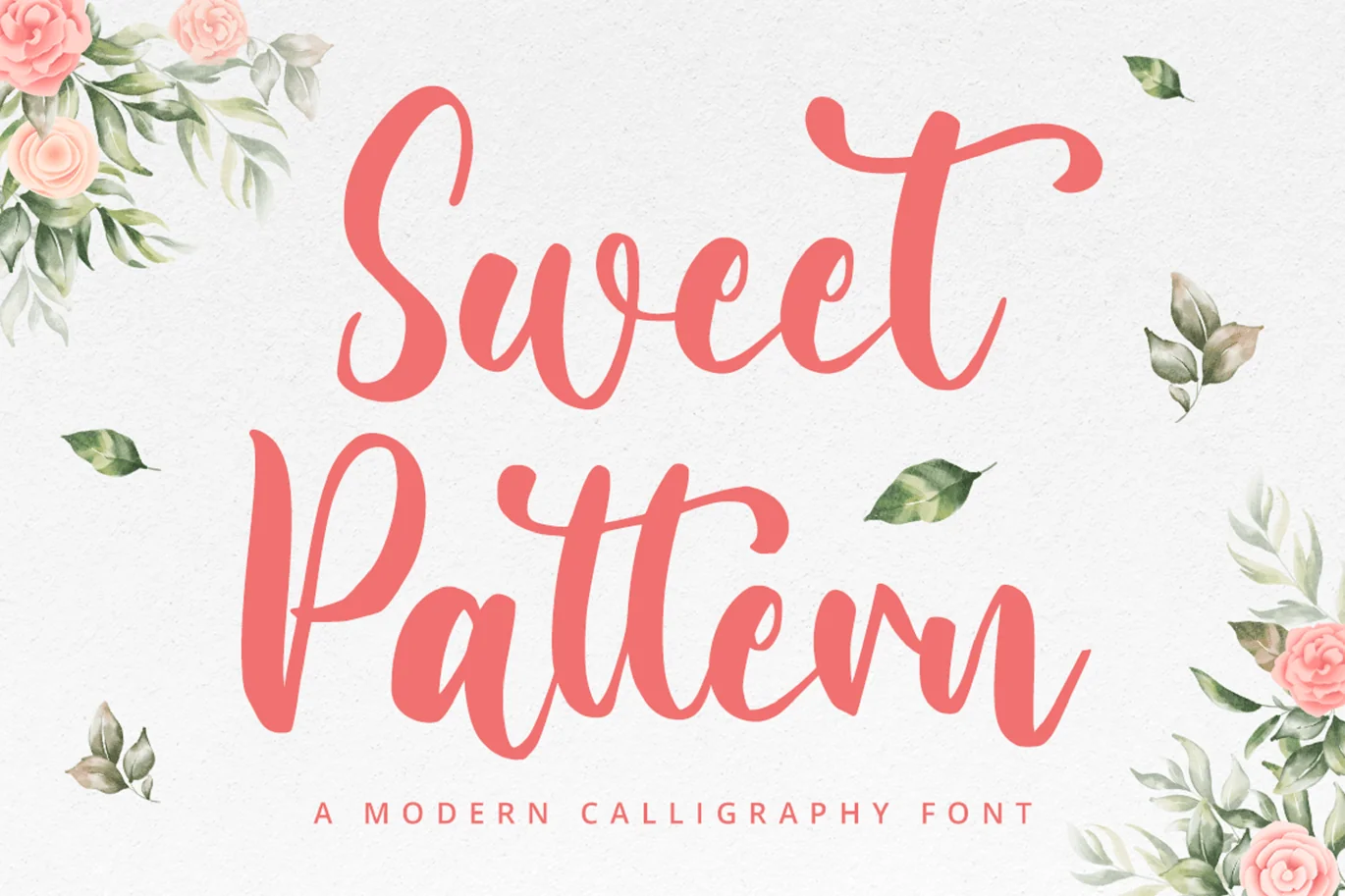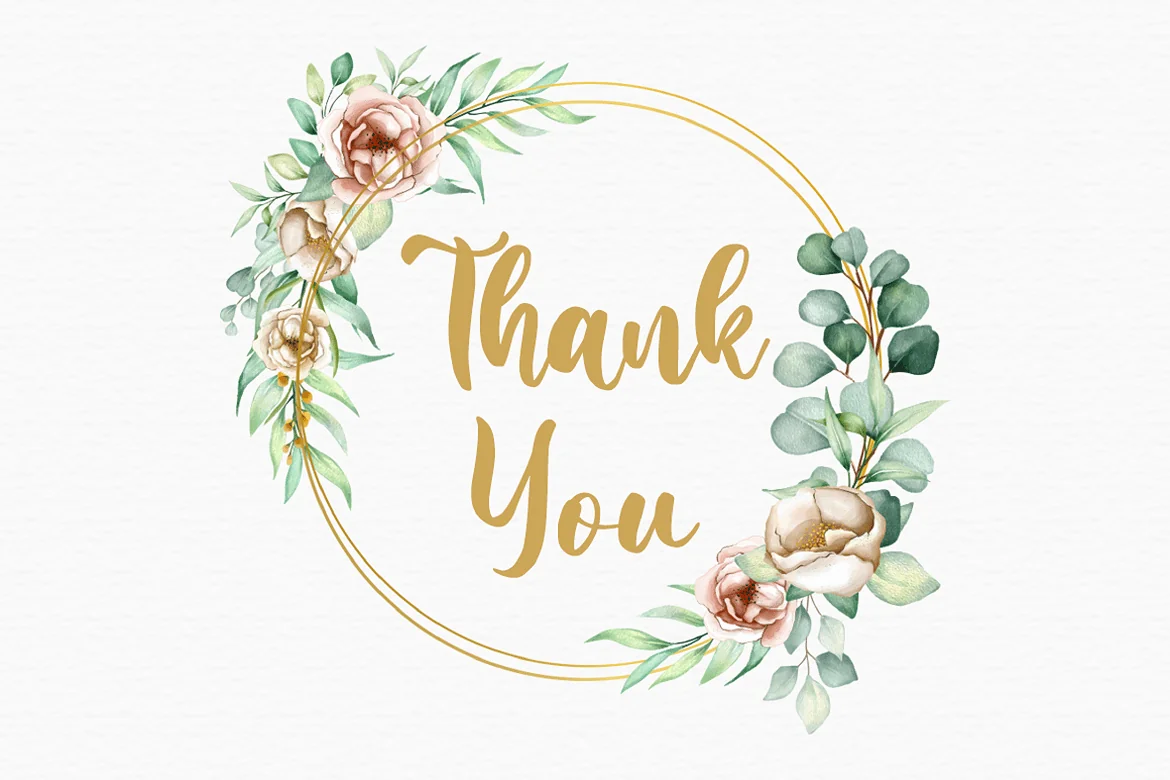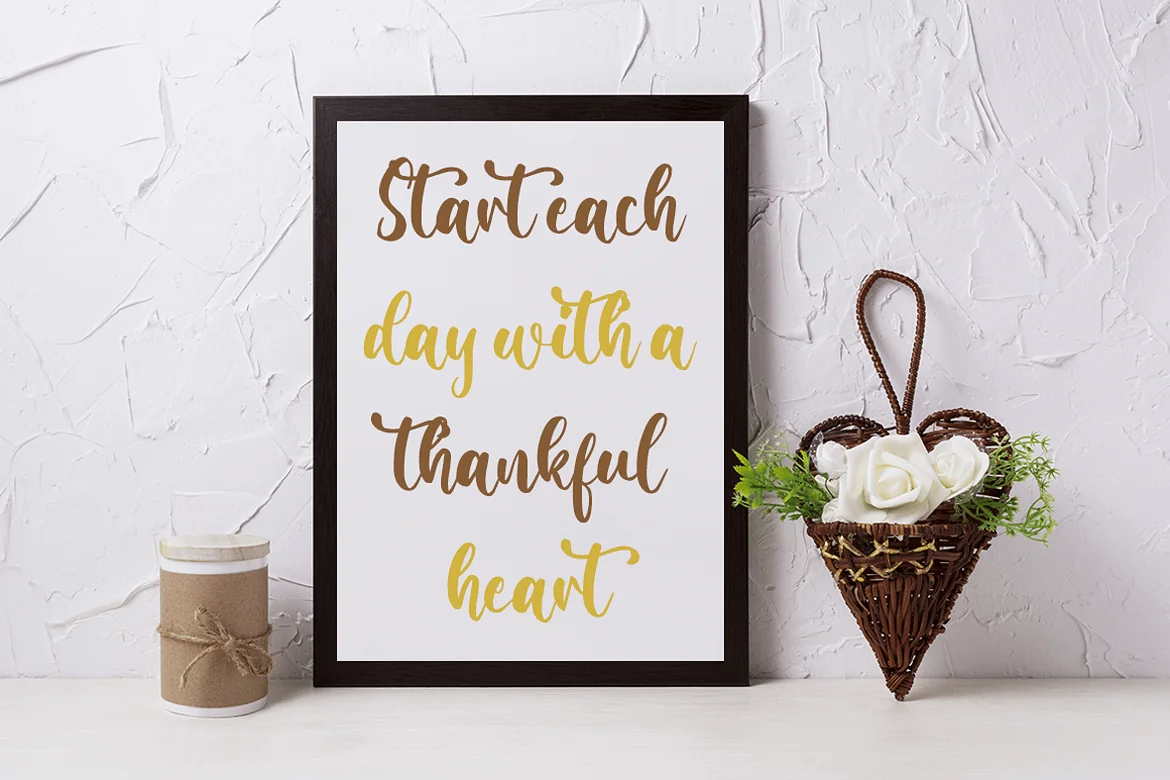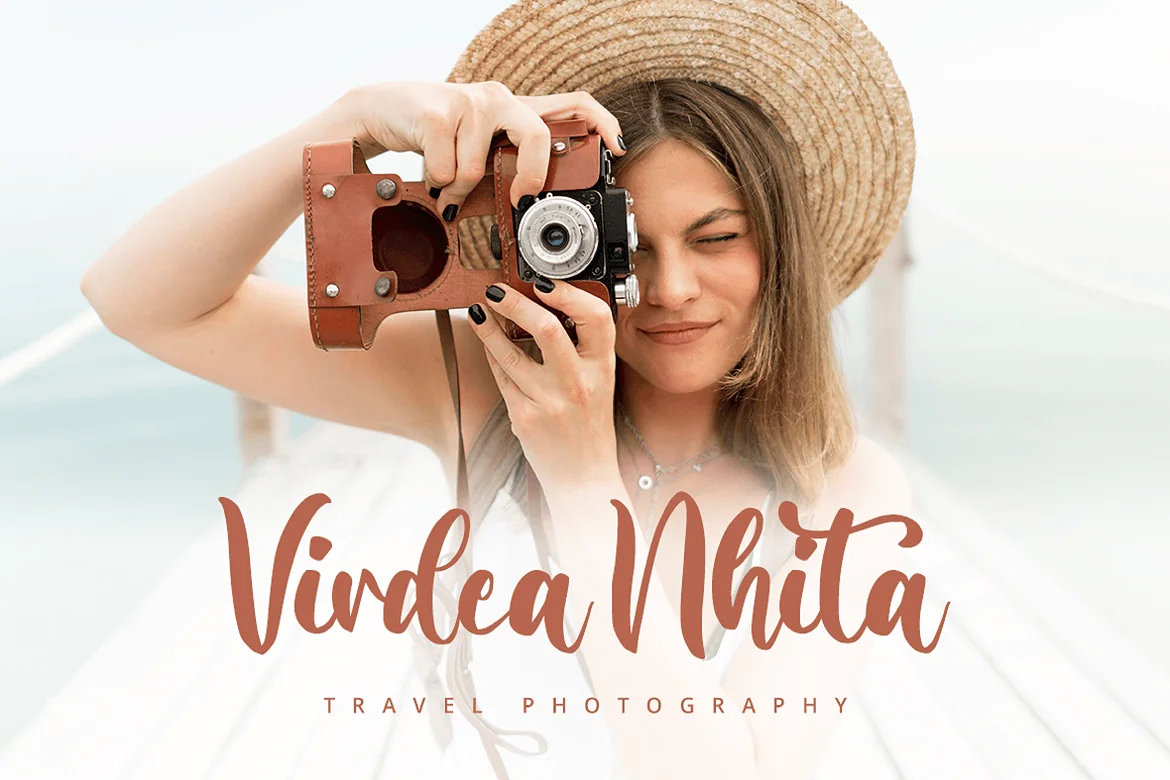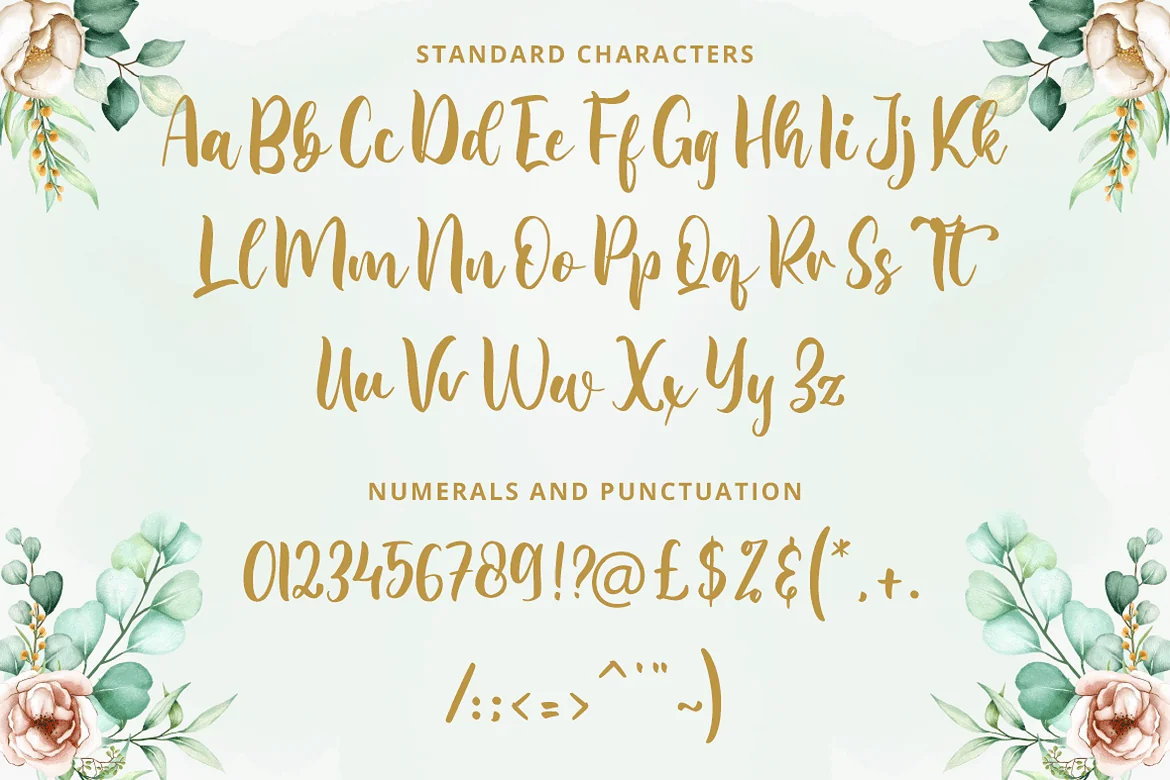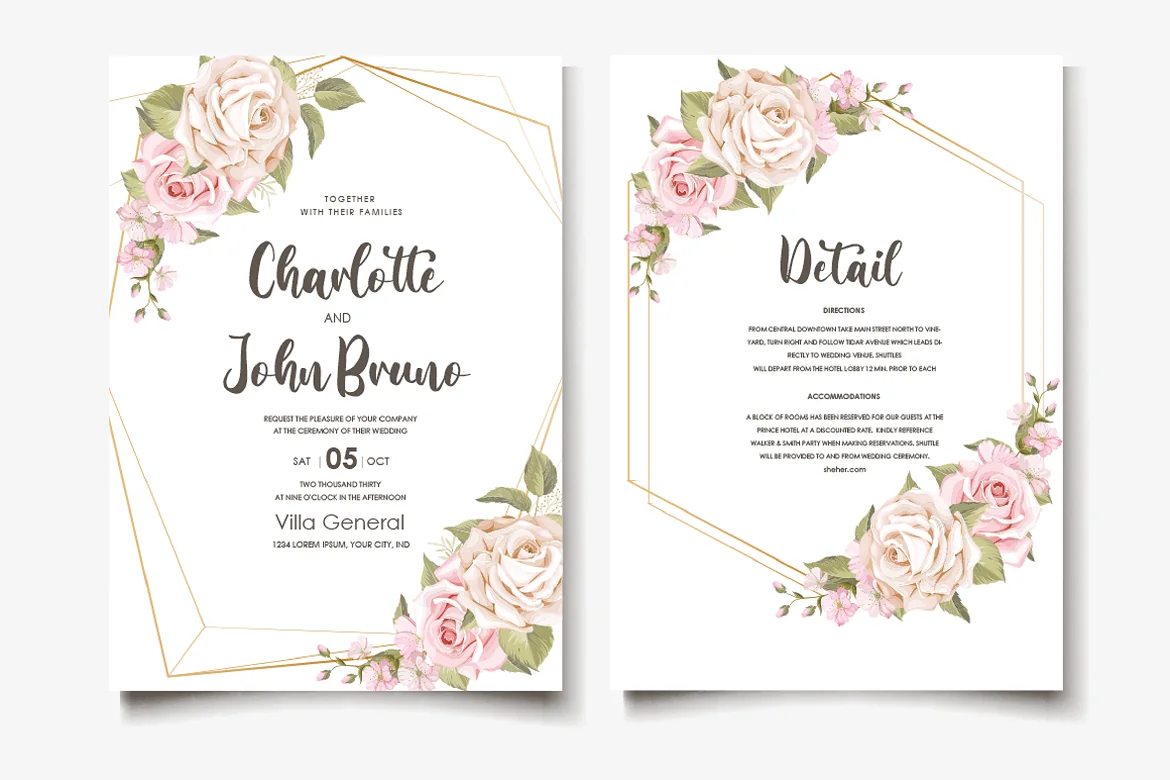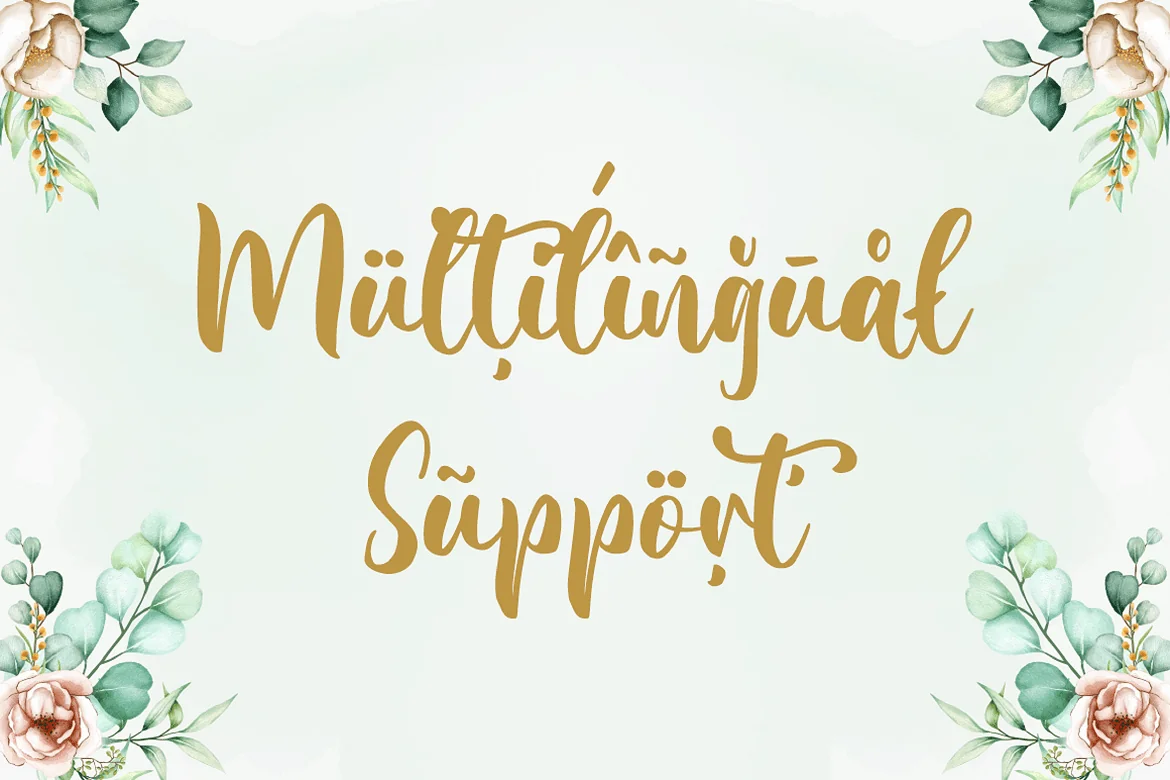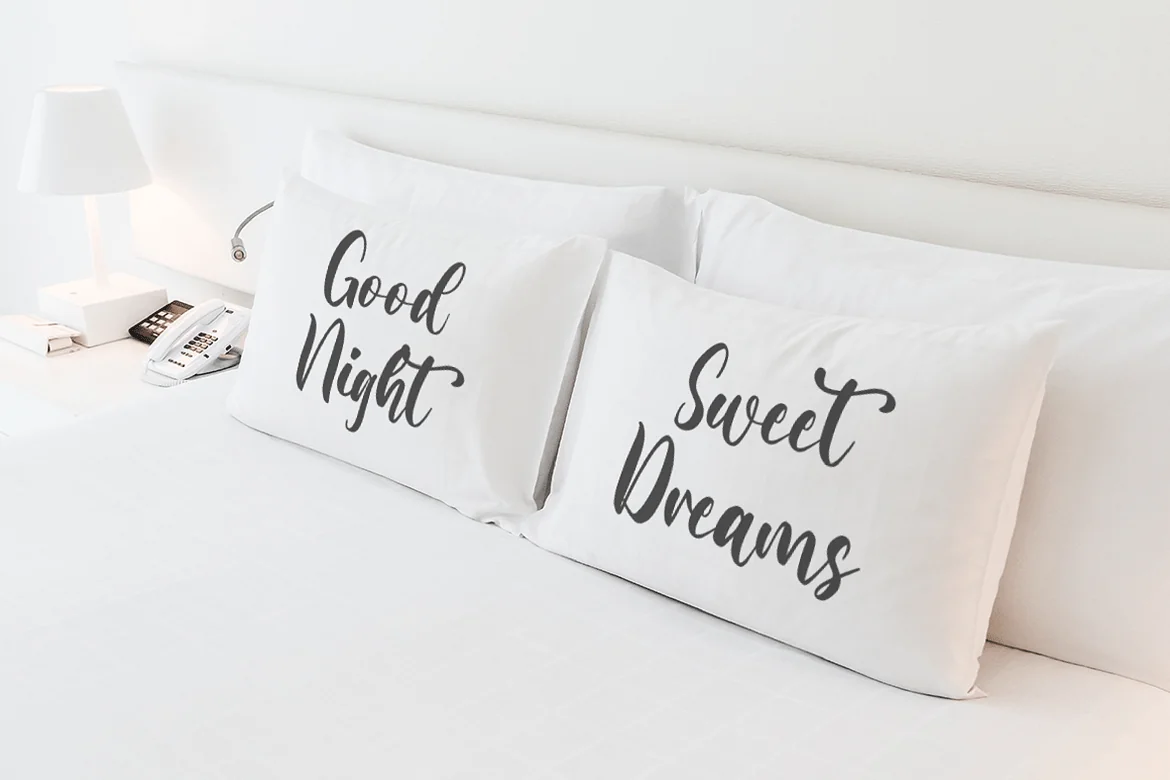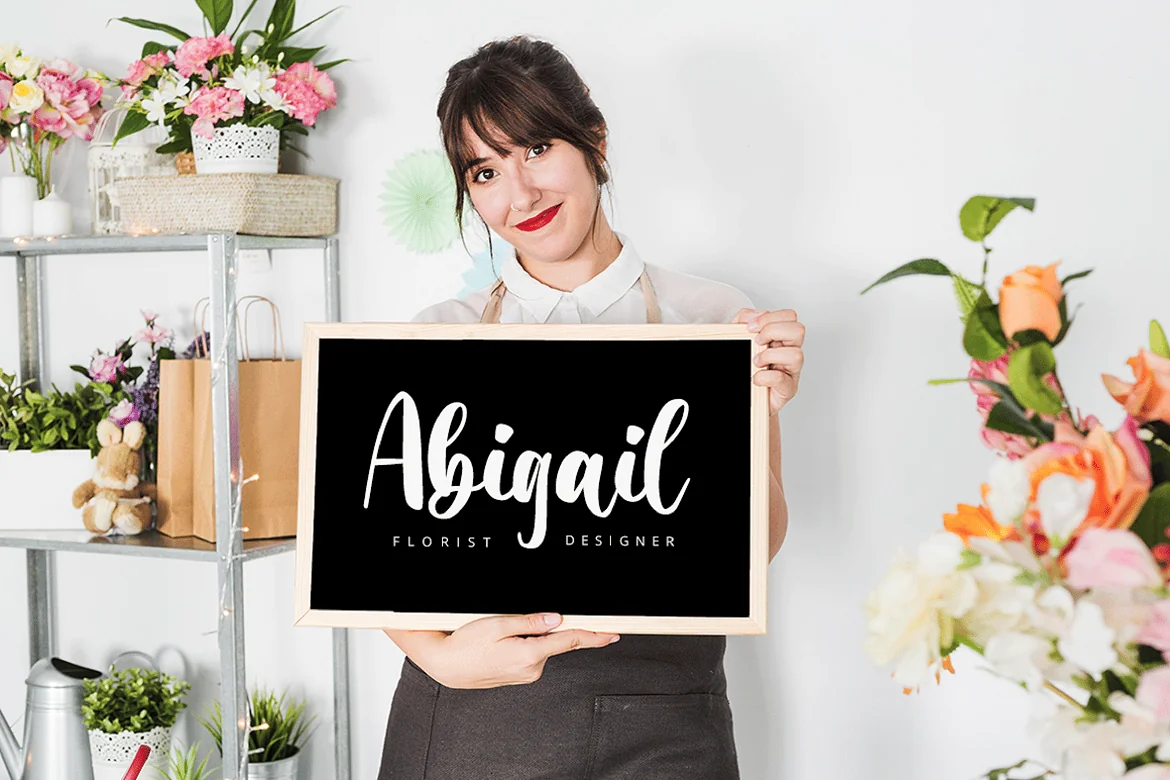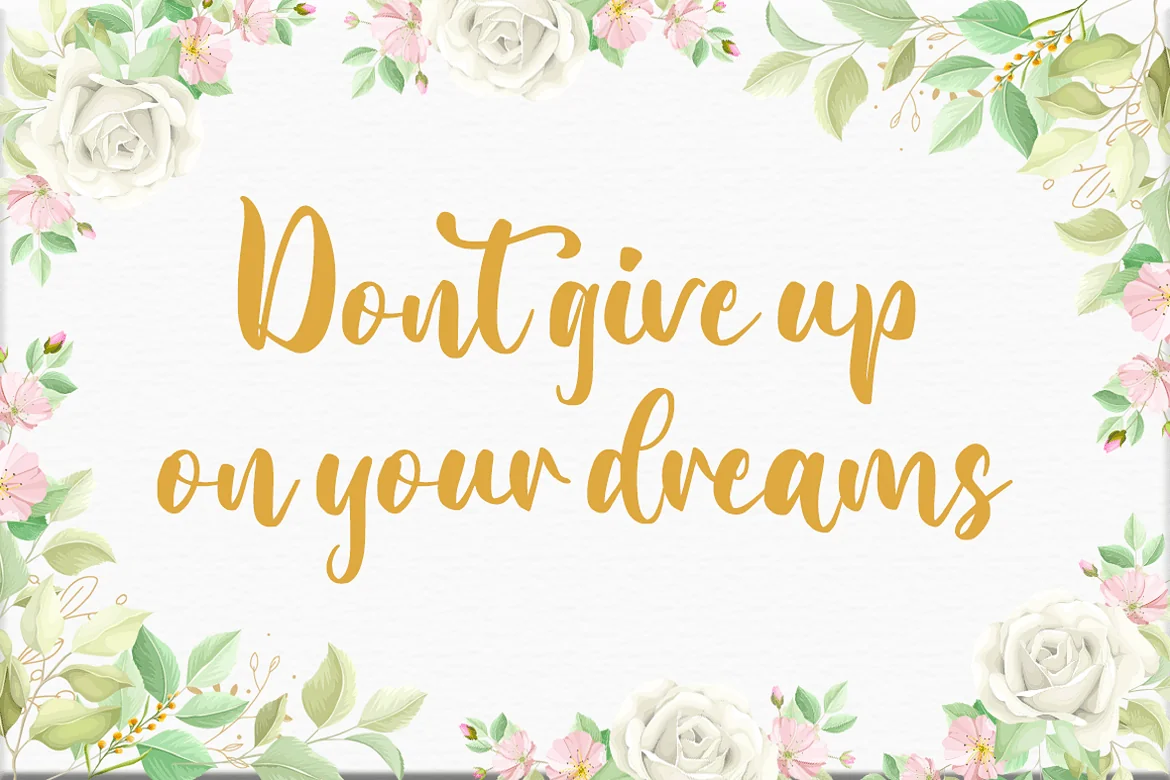
Introducing Sweet Pattern – A Modern Calligraphy Font
Sweet Pattern, just as sweet as flowers, flawless as you! A perfect font for your minimal yet beautiful website, social media branding, Pinterest banners, printed invitations, and more!
Sweet Pattern fonts, like a fragrance, speak your heart, your audience’s, clients and guests and people around you!
- Multilingual & Ligature Support
- Full sets of Punctuation and Numerals